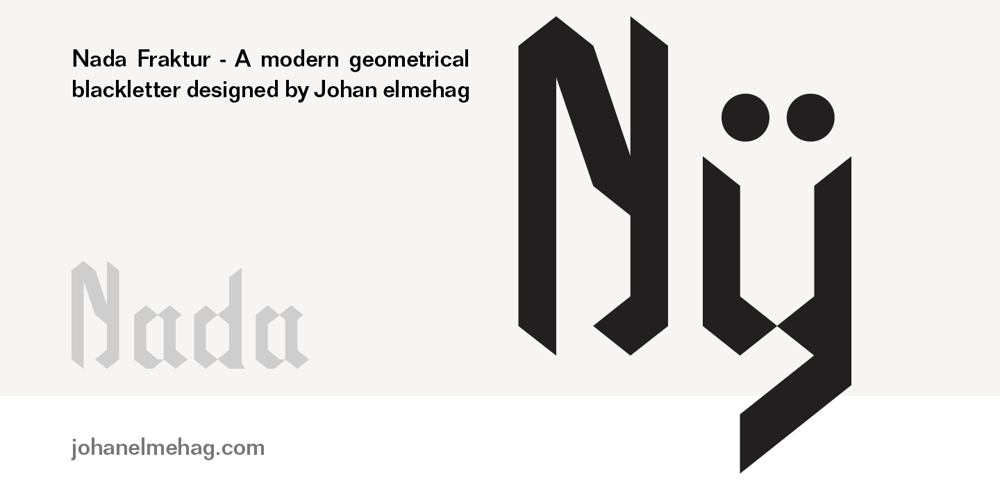
Nada Fraktur Font Family was designed by Johan Elmehag and published by Johan Elmehag. Nada Fraktur contains 1 styles and family package options. Nada Fraktur is a modern geometrical blackletter made to serve your hip intentions. Think hip-hop album sleeves, your local t-shirt print shop, and Tumblr-boy action. The goal with this typeface is to blend medieval aesthetic with sharp modern cuts. You could say that the font is sort of monospaced, but it is not. The typeface includes an extended character set to support Central and Eastern European as well as Western European Languages.